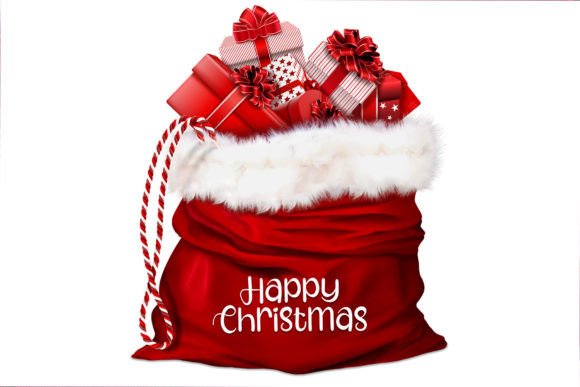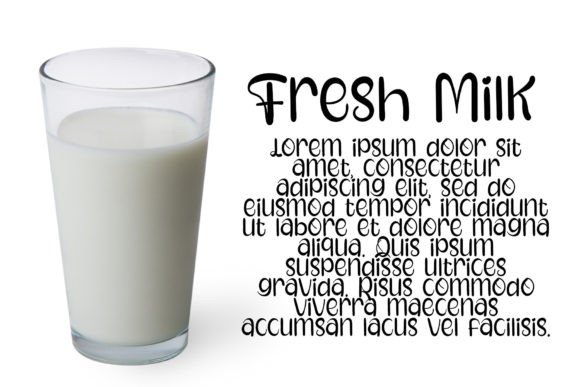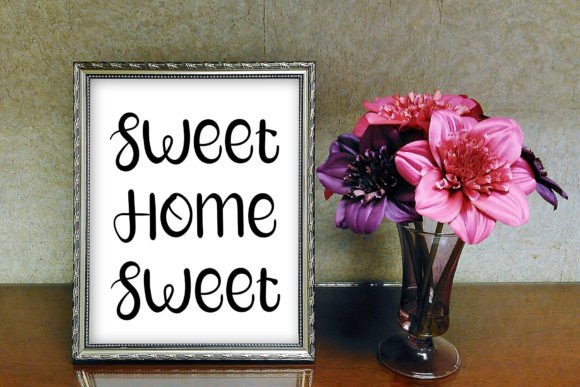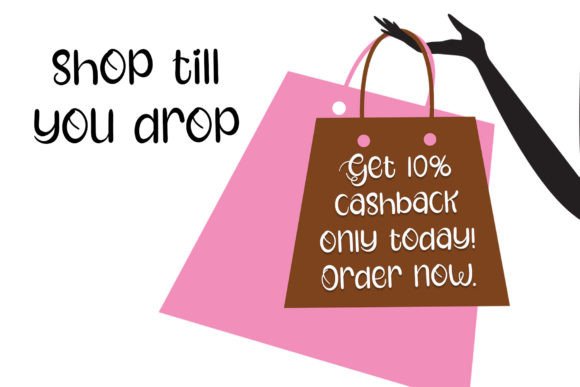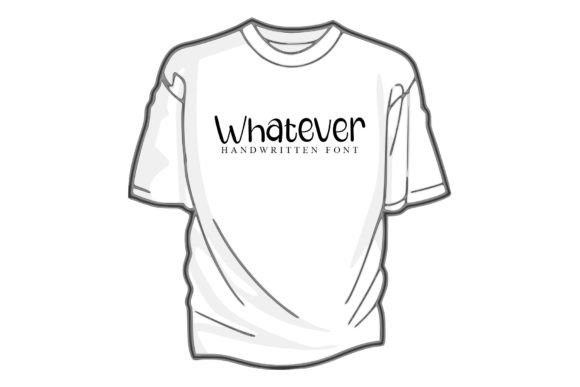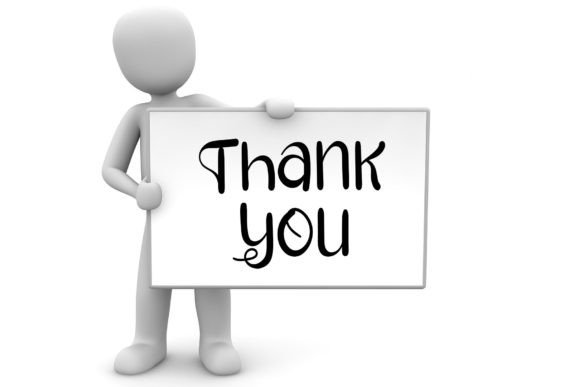
Introducing Alisa Font: Elevate Your Designs with Elegance and Sophistication
In the world of typography, a font can make or break a design. For designers and crafters looking to add a touch of elegance and sophistication to their projects, Alisa Font is an exceptional choice. This unique and elegant font is perfect for a wide range of applications, from wedding invitations and greeting cards to billboards, logos, and business cards.
The Unique Characteristics of Alisa Font
What sets Alisa Font apart is its distinctive, hand-crafted feel. The font features a varied baseline, which gives it a natural, hand-made touch. This characteristic makes Alisa Font incredibly versatile and suitable for designs that require a personal and intimate feel. Whether you’re working on a wedding invitation or a business card, Alisa Font brings a level of sophistication and elegance that’s hard to match.
Applications of Alisa Font
Alisa Font’s versatility is one of its strongest assets. Here are some of the many ways you can use this beautiful font:
- Wedding Invitations: Add a touch of romance and elegance to your wedding invitations. Alisa Font’s unique style ensures that your invitations stand out and set the tone for your special day.
- Greeting Cards: Whether it’s a birthday, anniversary, or holiday card, Alisa Font can help you create greeting cards that are both personal and impactful.
- Billboards: For larger-scale projects, Alisa Font’s clarity and elegance make it an excellent choice for billboards and other outdoor advertisements.
- Logos: If you’re looking to create a logo that conveys sophistication and elegance, Alisa Font can be a great option. Its unique style can help your brand stand out.
- Business Cards: Make a lasting impression with business cards that feature Alisa Font. This font’s professional yet personal feel is perfect for networking and business purposes.
Alisa Font is PUA (Private Use Area) encoded, which is a significant advantage for designers. PUA encoding allows you to access all glyphs and swashes with ease, giving you greater flexibility and creativity in your designs. This feature means you can experiment with different styles and flourishes, ensuring your final product is truly unique and reflective of your vision.
Why Choose Alisa Font?
With so many fonts available, why choose Alisa Font for your projects? Here are a few compelling reasons:
- Elegance: Alisa Font offers a level of elegance that’s hard to find in other fonts. Its sophisticated style is perfect for projects that require a touch of class.
- Versatility: From wedding invitations to billboards, Alisa Font’s versatility makes it suitable for a wide range of applications.
- Unique Style: The font’s varied baseline and hand-crafted feel give it a unique style that’s sure to make your designs stand out.
- PUA Encoding: With PUA encoding, you have easy access to glyphs and swashes, allowing for greater creativity and customization.
Tips for Using Alisa Font Effectively
To get the most out of Alisa Font, consider the following tips:
- Experiment with Sizes: Alisa Font looks great in various sizes, from small and delicate to large and bold. Experiment with different sizes to find the perfect fit for your project.
- Play with Swashes: Take advantage of the font’s PUA encoding to access swashes and glyphs. These can add a decorative touch to your designs and make them more visually appealing.
- Combine with Other Fonts: Don’t be afraid to pair Alisa Font with other fonts. Its elegant style complements a wide range of typography, allowing you to create visually interesting and dynamic designs.
Alisa Font is a unique and elegant addition to any designer’s toolkit. Its hand-crafted feel, varied baseline, and PUA encoding make it a versatile and sophisticated choice for a wide range of projects. Whether you’re working on wedding invitations, greeting cards, billboards, logos, or business cards, Alisa Font can help you create designs that are both elegant and impactful. With its ease of use and flexibility, Alisa Font is sure to become a favorite among designers and crafters looking to elevate their designs with a touch of sophistication.